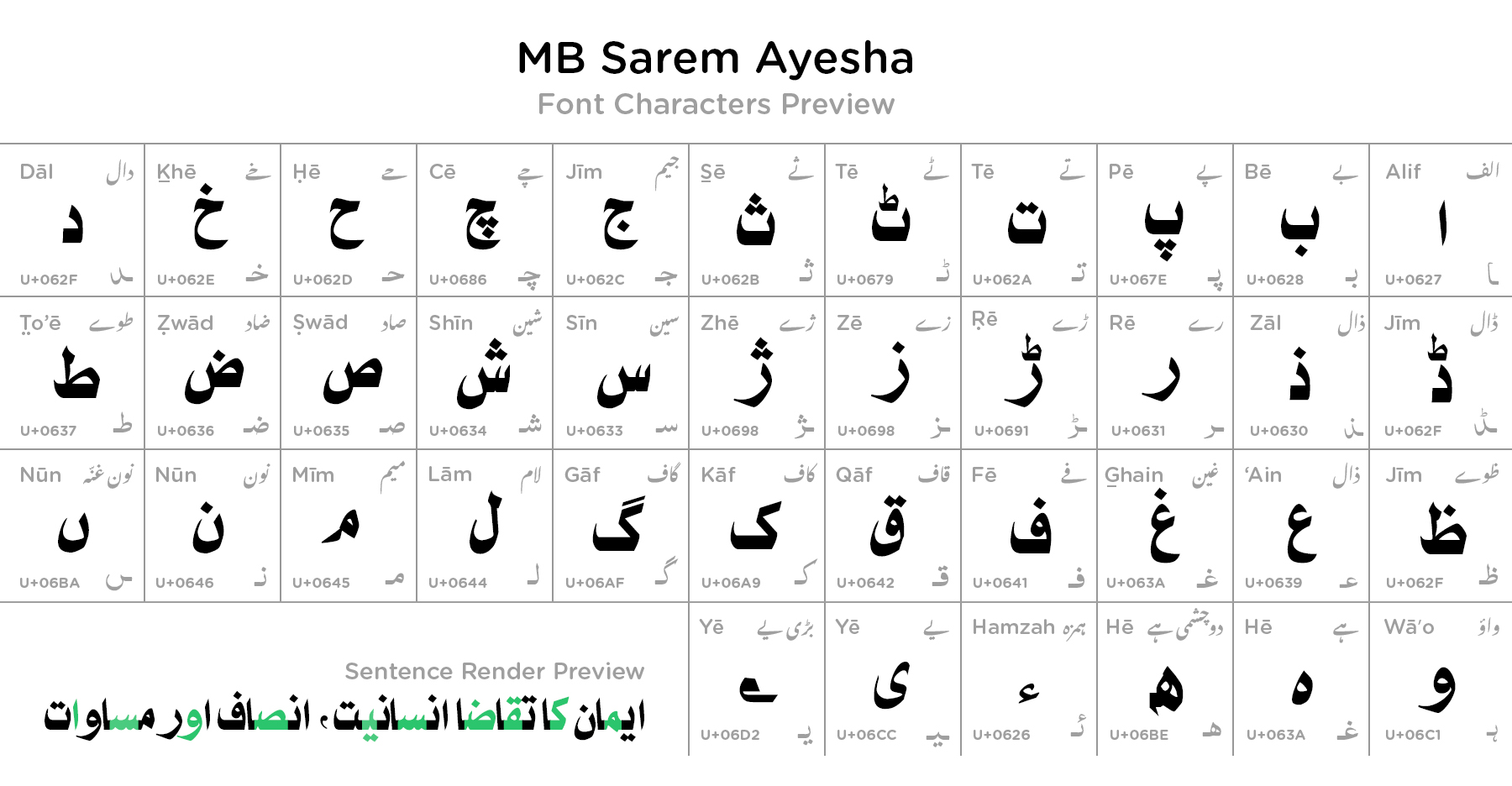
MB Sarem Ayesha
MB Sarem Ayesha is a striking Sindhi font developed by an esteemed font designer Sanaullah Mangnejo Sarem and trademarked by Ayesha Graphics. It is a bold and filled typeface with an overall sharp appearance. It is inspired from historical calligraphy Naskh script. The font presents a bold and impactful look and feel with a character 379 letters and symbols with an extensive glyph count, making it useful for various typographic needs. With its bold strokes and impactful appearance, this typeface displays a persuasive vibe, making it ideal for short text blocks rather than longer passages. Its high legibility on screens makes it perfect for applications like Quran writing, calligraphy, book covers, and Islamic texts.
Moreover, its wide Unicode support adds to its versatility, encompassing various blocks like Latin, Arabic, Punctuation, Symbols, Private Use, and Presentation Forms. Additionally, it offers compatibility with different languages such as Arabic, Latin, and Urdu, providing a diverse typographic experience. However, the font is only available in regular font weight which puts a limit to its adaptability. Therefore, it is not preferred to use for formal writing, as the text would look condensed at smaller sizes. However, if you need to add a flair of tradition and bold and striking elegance to your text, MB Sarem Ayesha is your perfect choice.